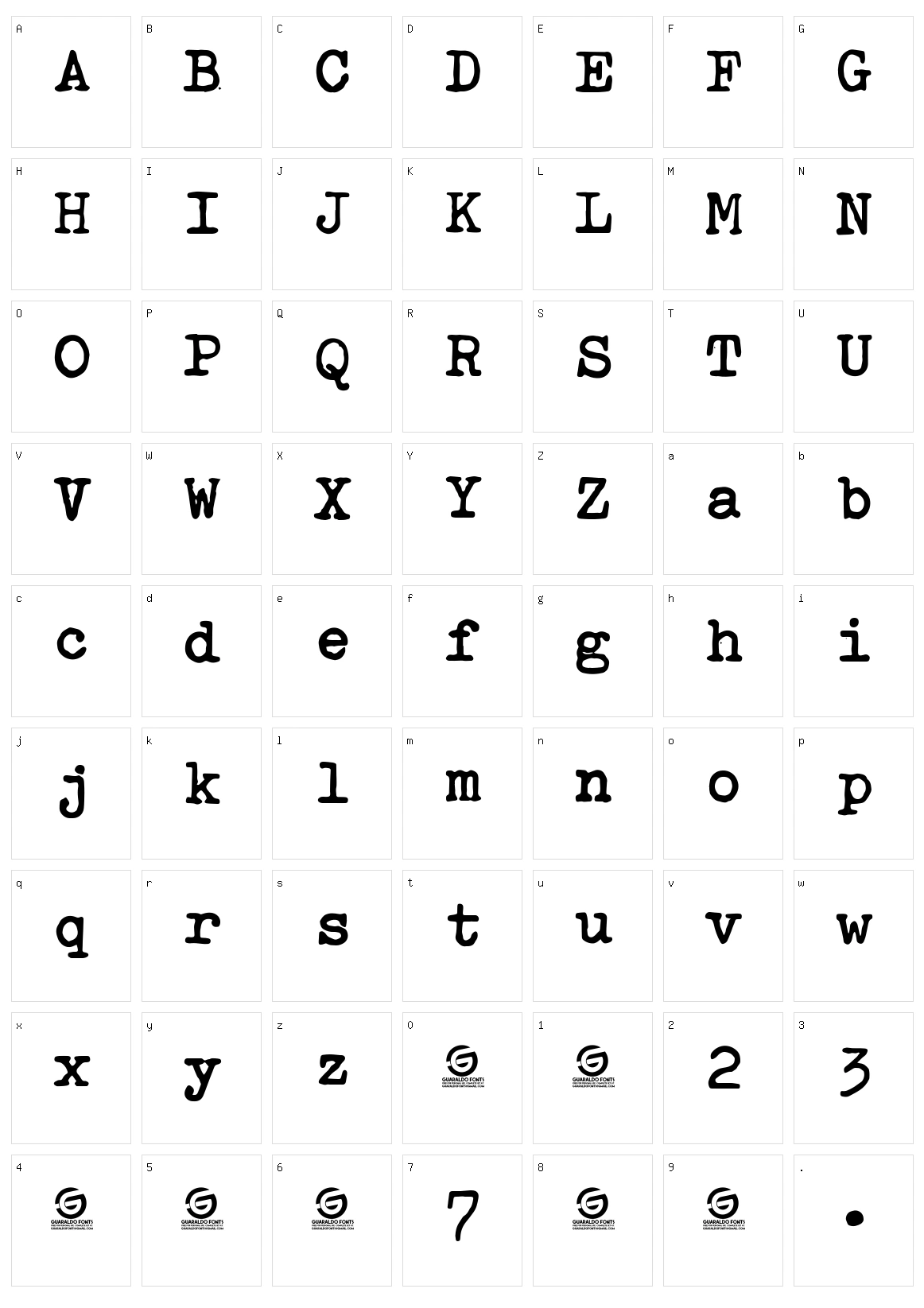
The free font Dull Boy is carefully designed by Guaraldo Fonts, showcasing a thoughtful balance of creativity and usability and falls under the Typewriter font style. When you download the ZIP file, it contains only 636.53 KB of font files, making it lightweight and quick to download. Please review the license details below to understand permitted usage and distribution rights. If license information is not available, we recommend using this font for personal projects only or contacting the author directly for commercial usage permissions.